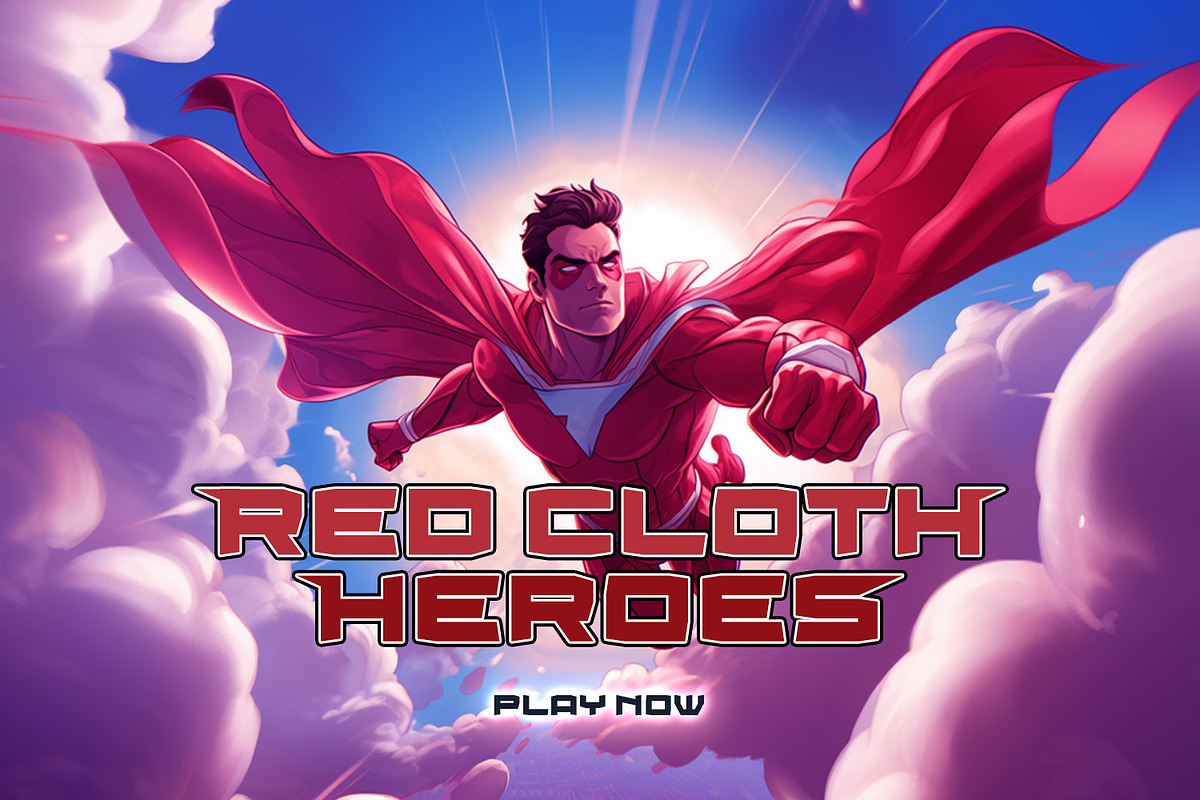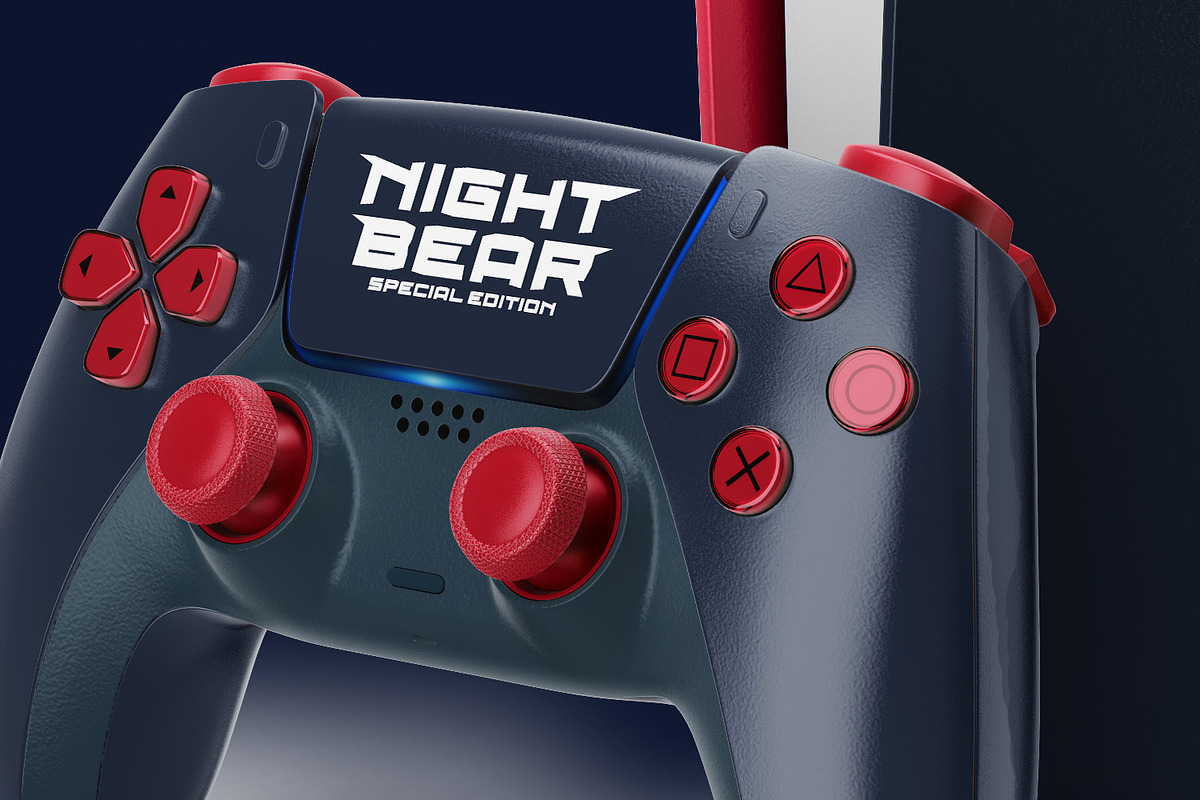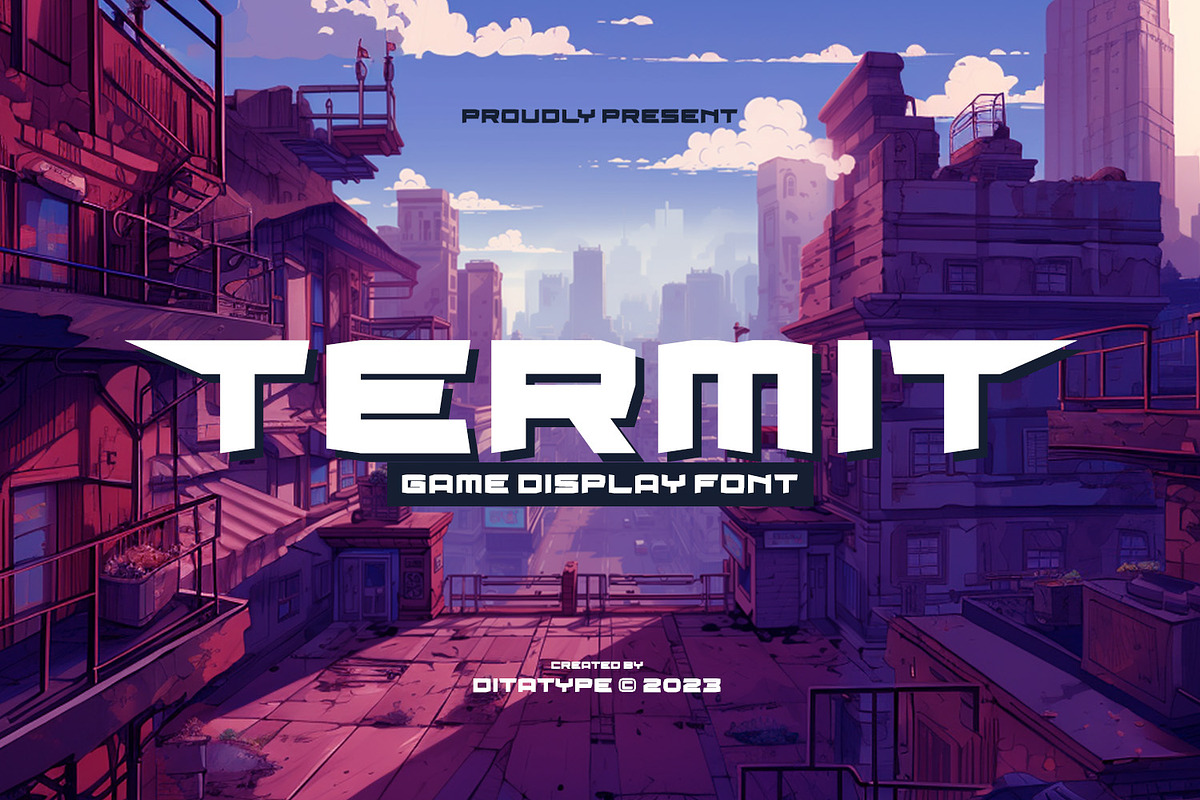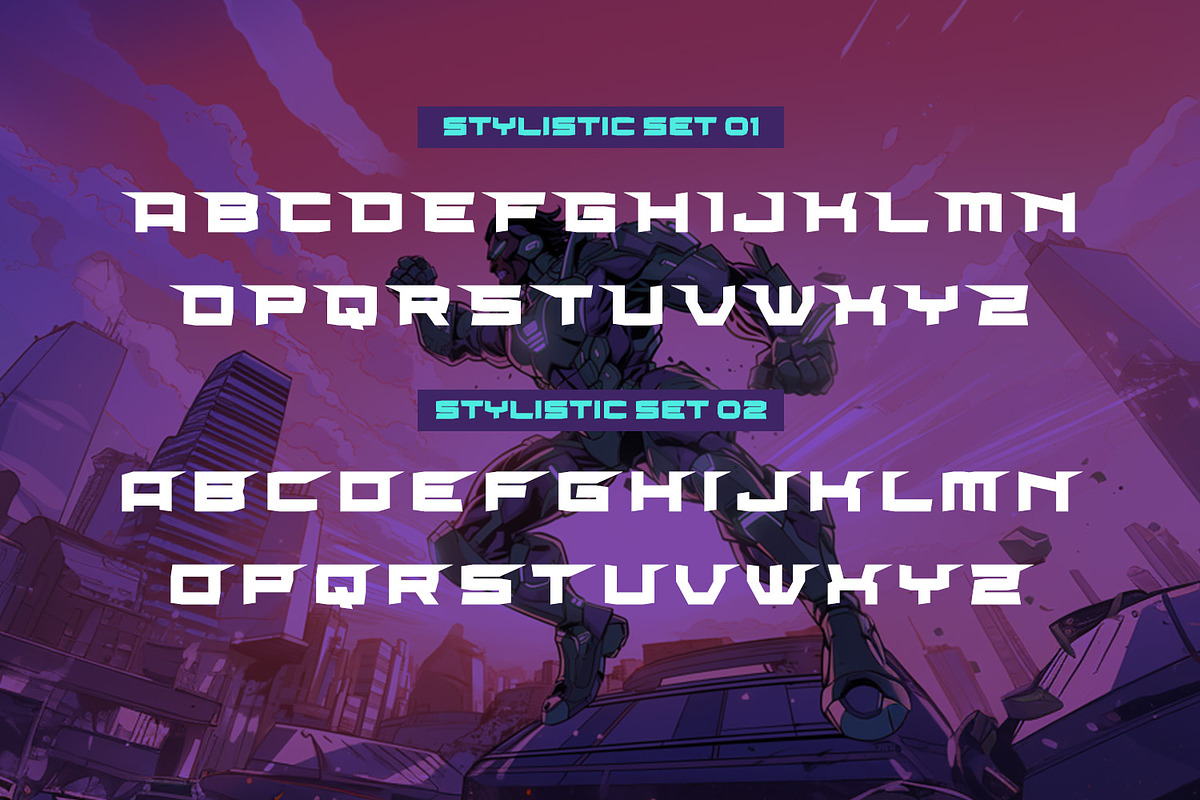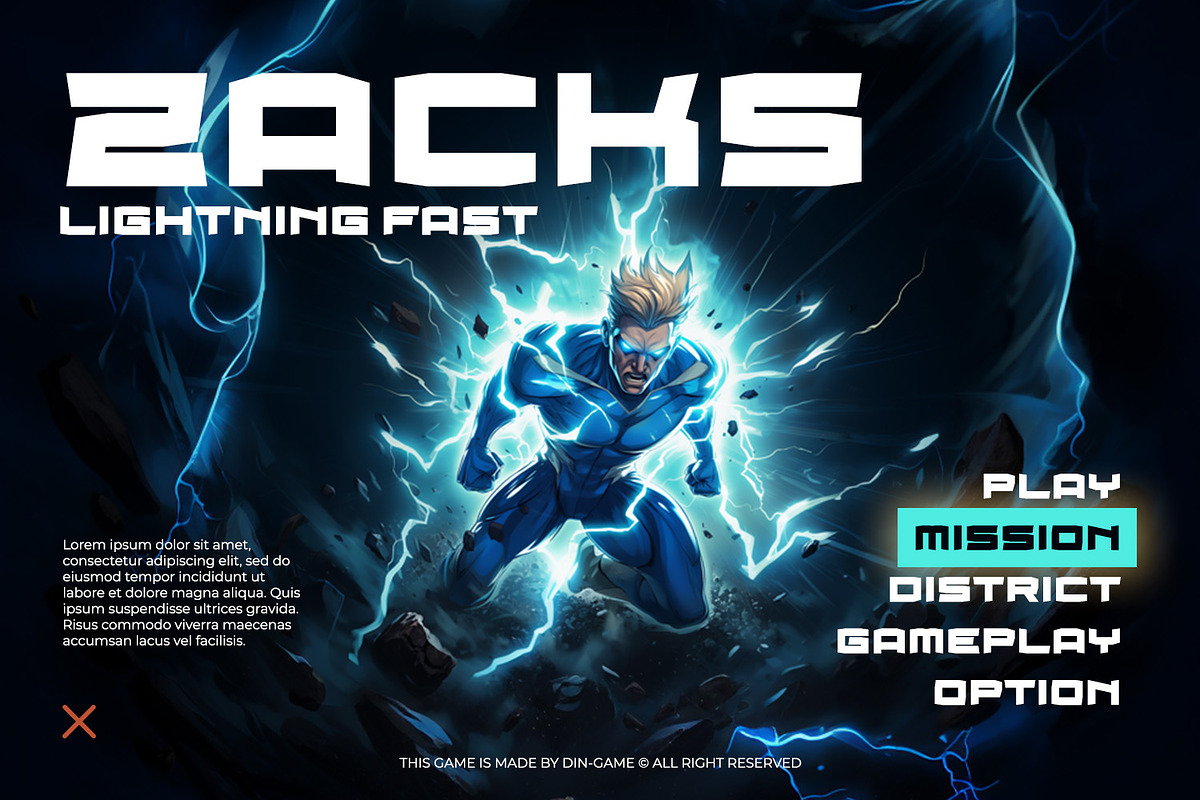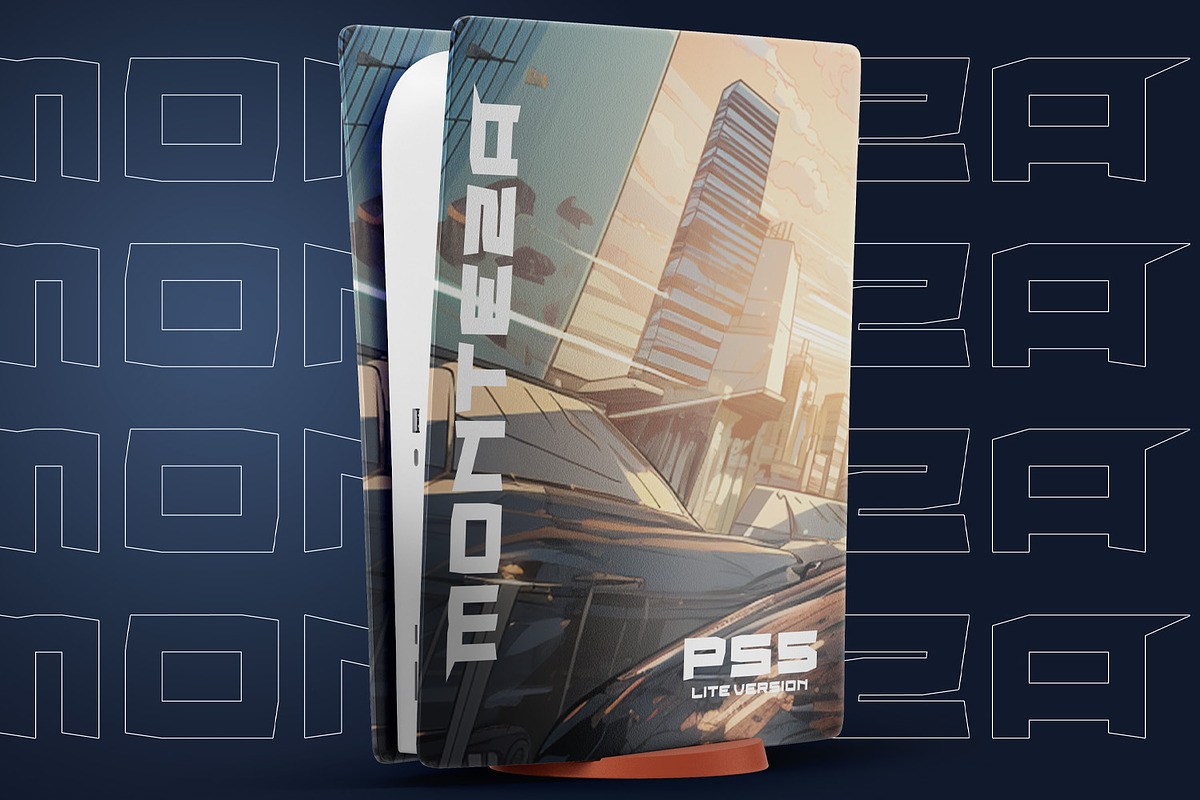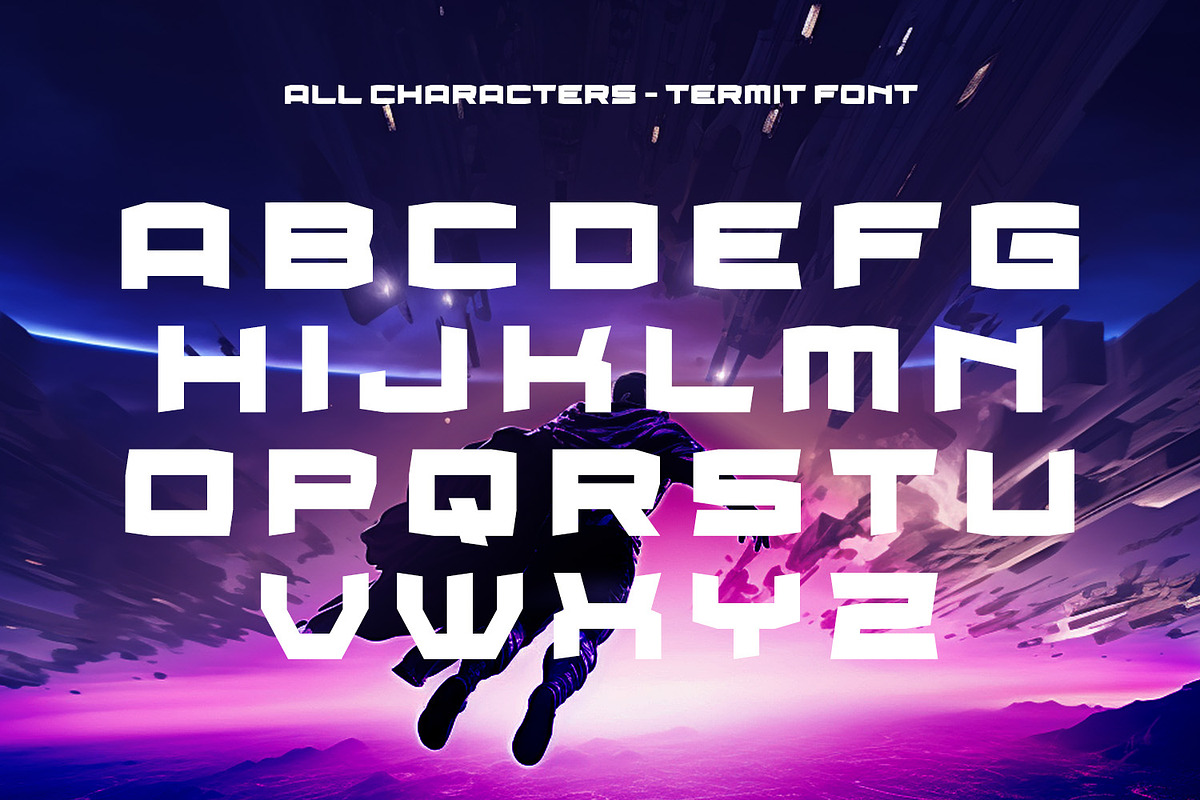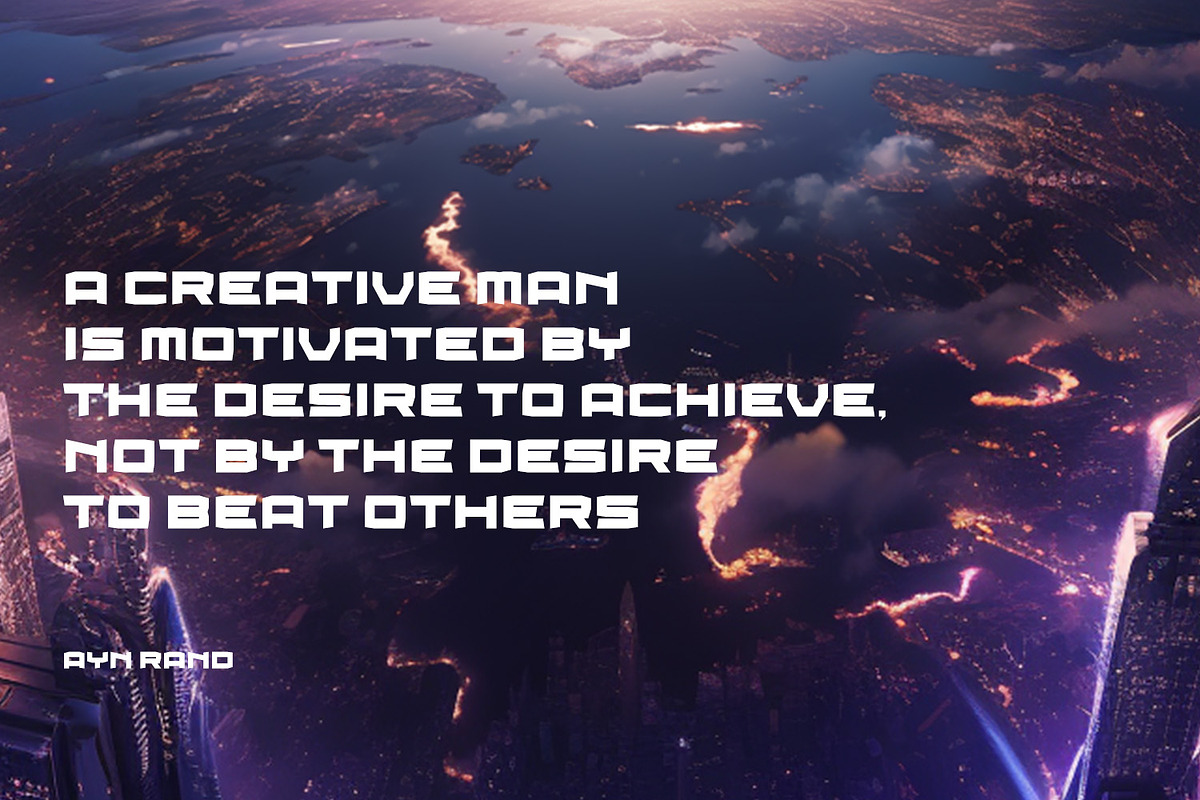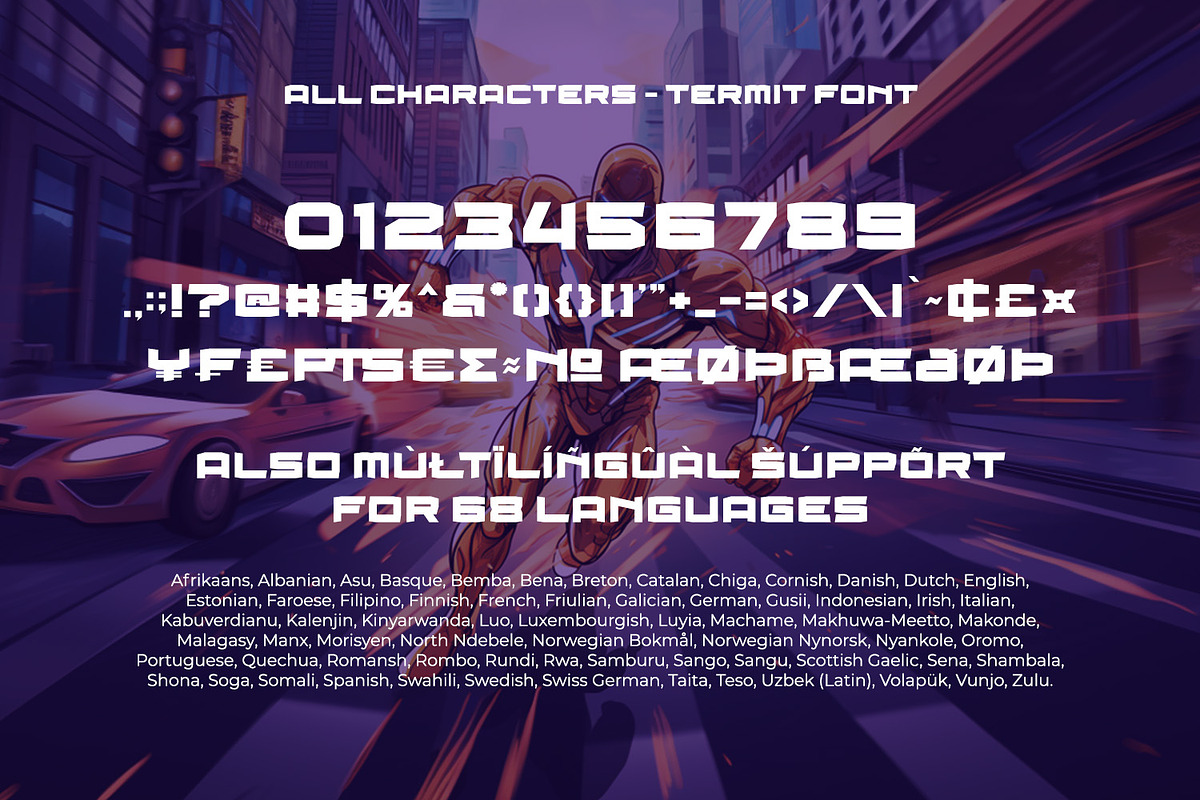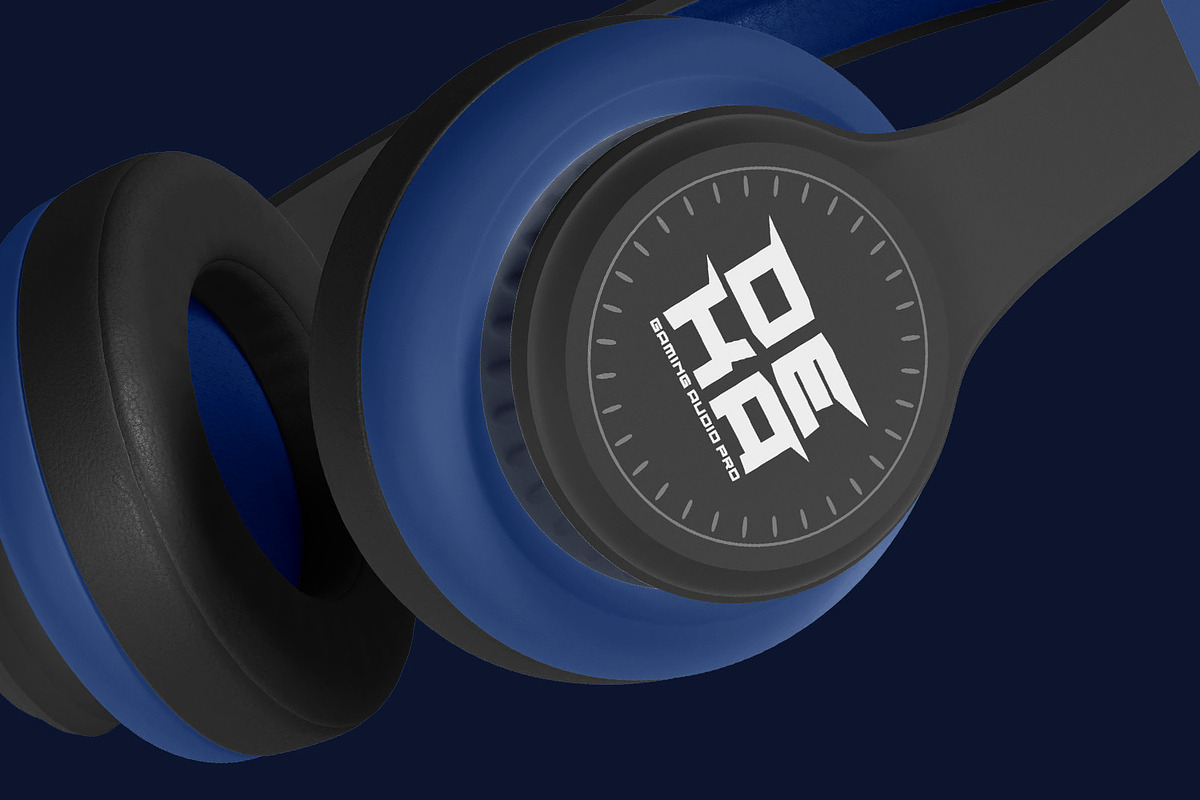
Termit
Termit is a striking display font designed with a game theme, featuring large letters with a fairly thick weight and a rectangular shape with sharp corners. This font shows large letters that demand attention and create a bold statement. The rectangular shape with sharp corners in Termit adds a sense of structure and stability to the font. The clean lines and defined angles create a visually bold and impactful appearance. This unique feature evokes a sense of strength and resilience, reflecting the competitive and strategic nature of the gaming world. Each character shares the same height and width, creating a cohesive and pleasing visual experience. With its low-contrast design, it offers a subtle and understated look. The minimal variation in stroke width adds a sense of uniformity and simplicity to the font, allowing the overall design to take center stage. This feature ensures that the focus remains on the content while still maintaining a strong visual impact. Enjoy the available features here.
- Stylistic Sets
Termit fits in headlines, logos, posters, titles, branding materials, print media, editorial layouts, website headers, and any other game-themed projects. Find out more ways to use this font by taking a look at the font preview.